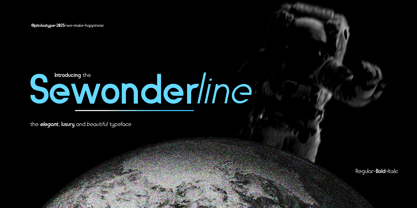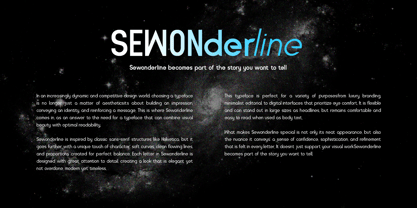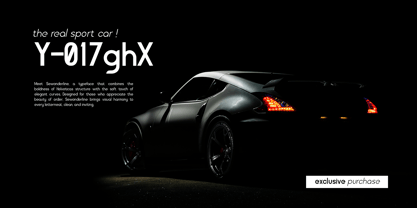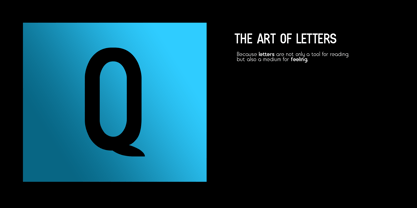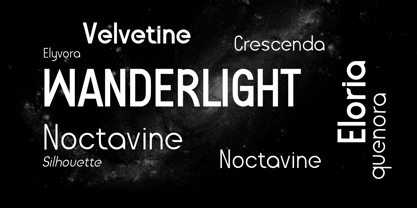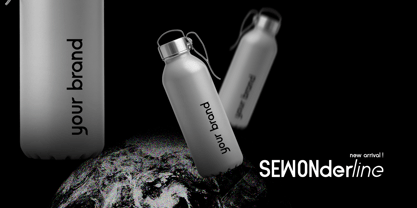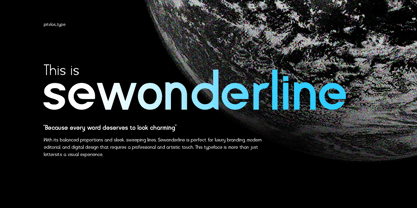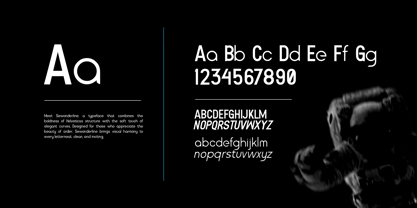
Sewonderline
La famille de polices Sewonderline a été conçue par Yoga Dwi Cahyono et publiée par Pitvlas Type. Sewonderline contient 4 styles et options de package familial.
Meet Sewonderline, a typeface that combines the boldness of Helvetica’s structure with the soft touch of elegant curves. Designed for those who appreciate the beauty of order, Sewonderline brings visual harmony to every letter—clean, clean, and inviting.
With balanced proportions and graceful, sweeping lines, Sewonderline is perfect for luxury branding, modern editorial, and digital design that requires a professional, artistic touch. This typeface is more than just letters—it’s a visual experience.